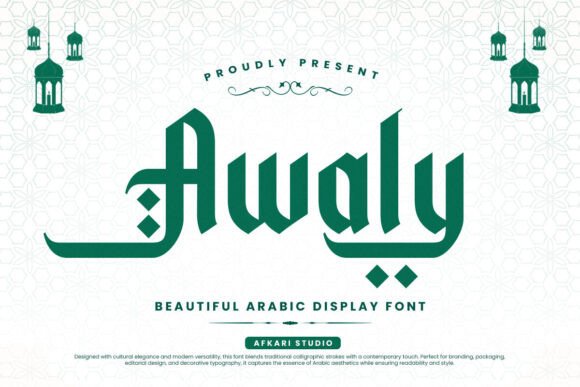
Awaly Font: A Beautifully Crafted Arabic-Type Typeface
Awaly is a stunning Arabic-style typeface that seamlessly blends traditional calligraphic elegance with modern versatility. This beautifully crafted font is designed to capture the fluidity and grace of Arabic letterforms, making it perfect for a wide range of design projects, from branding and packaging to headlines, posters, and Islamic designs.
Key Features of Awaly Font
- Traditional Arabic Calligraphy: Awaly font is deeply rooted in traditional Arabic calligraphy, offering a smooth, flowing structure that echoes the classic scripts of the Middle East.
- Modern Versatility: Despite its traditional roots, Awaly is incredibly versatile, making it suitable for modern design applications, from digital media to print.
- Elegant Curves: The font features carefully designed curves and strokes that bring an authentic Middle Eastern aesthetic to any project.
- Refined and Artistic: Awaly ensures a refined and artistic touch, making it perfect for designs that require a sophisticated and elegant look.
Ideal Design Applications for Awaly Font
Awaly font is incredibly versatile and can be used in a variety of design projects, including:
- Branding: Create stunning brand identities with Awaly’s elegant and sophisticated letterforms.
- Packaging: Add a touch of Arabic elegance to your product packaging with this beautiful font.
- Headlines and Posters: Use Awaly to create eye-catching headlines and posters that demand attention.
- Islamic Designs: Awaly is perfect for Islamic designs, including Ramadan campaigns, halal products, and cultural events.
The Cultural Significance of Awaly Font
Awaly font is more than just a typeface; it’s a representation of Arabic culture and tradition. With its roots in traditional Arabic calligraphy, this font brings a touch of authenticity to any design project. Whether you’re designing for a global audience or a local market, Awaly ensures that your message is conveyed with elegance and sophistication.
In the Middle East, calligraphy is considered an art form, and Awaly font is a testament to this rich cultural heritage. The font’s smooth, flowing structure and carefully designed curves evoke the classic scripts of the region, making it perfect for designs that require a touch of cultural authenticity.
Typographic Details of Awaly Font
Awaly font features a range of typographic details that make it stand out from other Arabic-type typefaces. Some of its key typographic features include:
- Unique Letterforms: Awaly features unique and elegant letterforms that are designed to capture the fluidity and grace of Arabic script.
- Carefully Designed Curves: The font’s curves and strokes are carefully designed to bring an authentic Middle Eastern aesthetic to any project.
- Support for Arabic and Latin Scripts: Awaly font supports both Arabic and Latin scripts, making it a versatile choice for multilingual designs.
Design Tips for Using Awaly Font
To get the most out of Awaly font, here are some design tips to keep in mind:
- Use Awaly for Headlines: Awaly’s elegant and sophisticated letterforms make it perfect for headlines and titles.
- Pair Awaly with a Sans-Serif Font: Pair Awaly with a sans-serif font for body text to create a striking contrast between headings and content.
- Experiment with Colors: Awaly font looks stunning in a range of colors, from traditional Arabic colors like gold and navy blue to bold and bright hues.
Awaly font is a beautifully crafted Arabic-type typeface that blends traditional calligraphic elegance with modern versatility. With its smooth, flowing structure and carefully designed curves, Awaly brings an authentic Middle Eastern aesthetic to any project. Whether you’re designing for branding, packaging, headlines, posters, or Islamic designs, Awaly font ensures a refined and artistic touch.